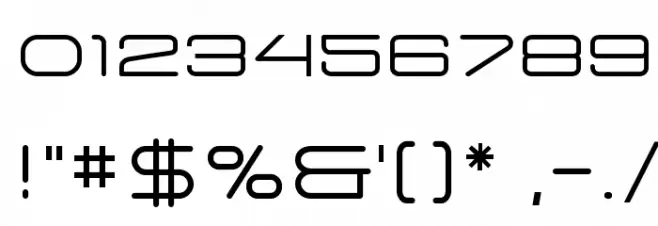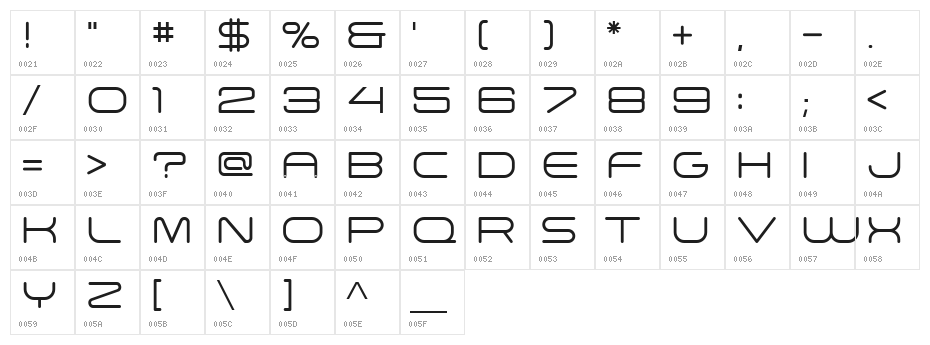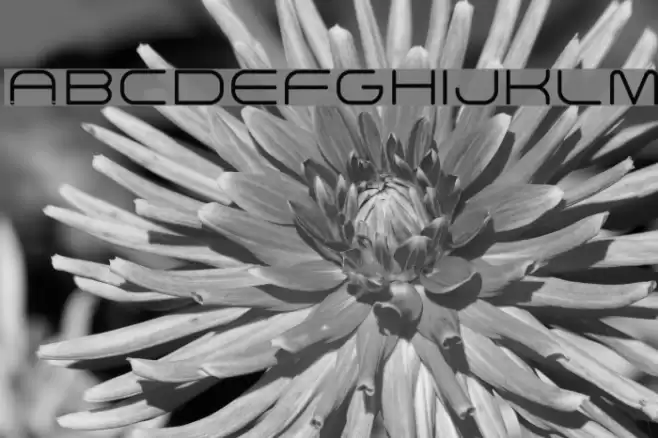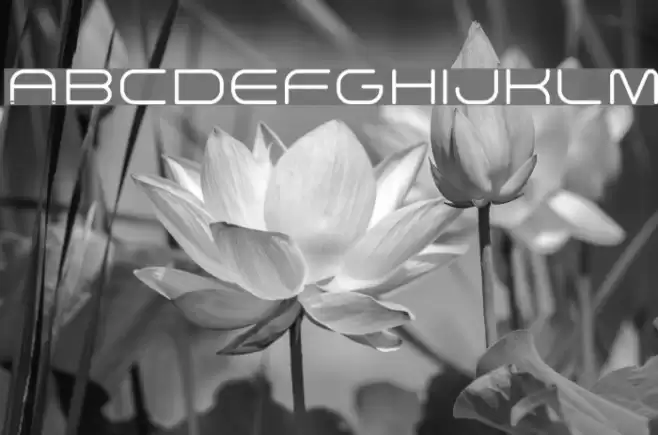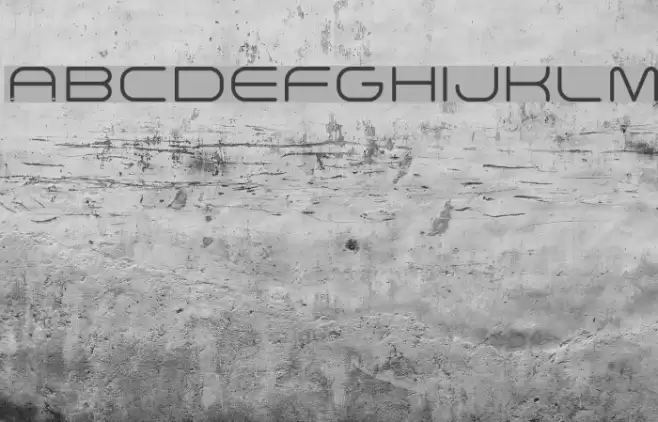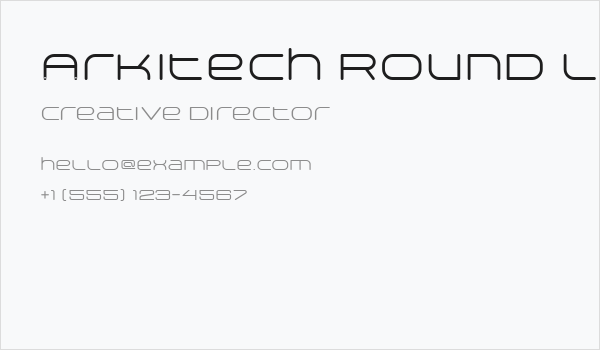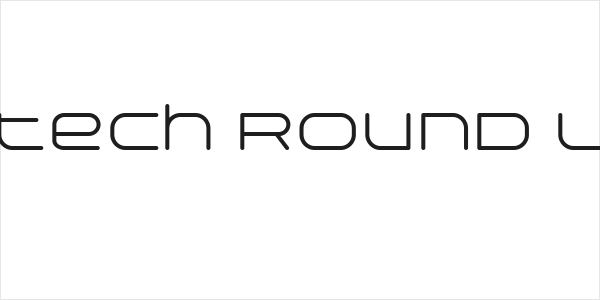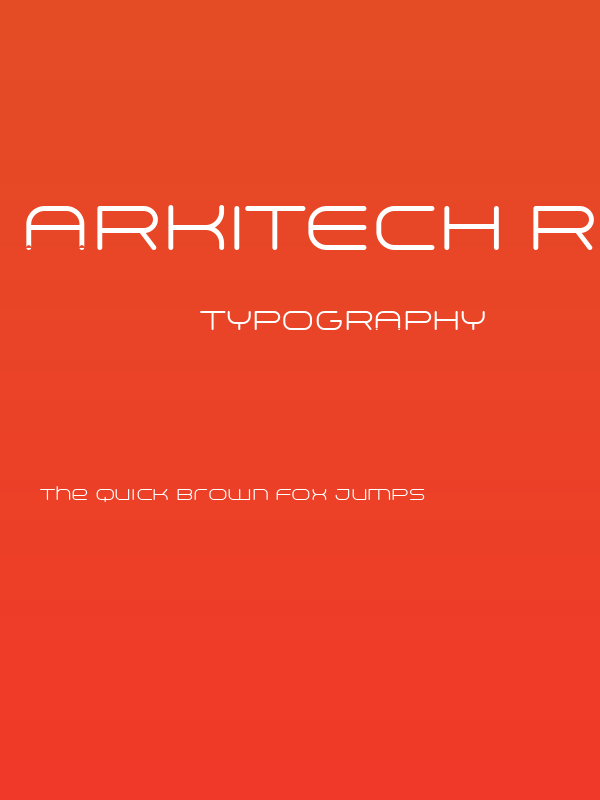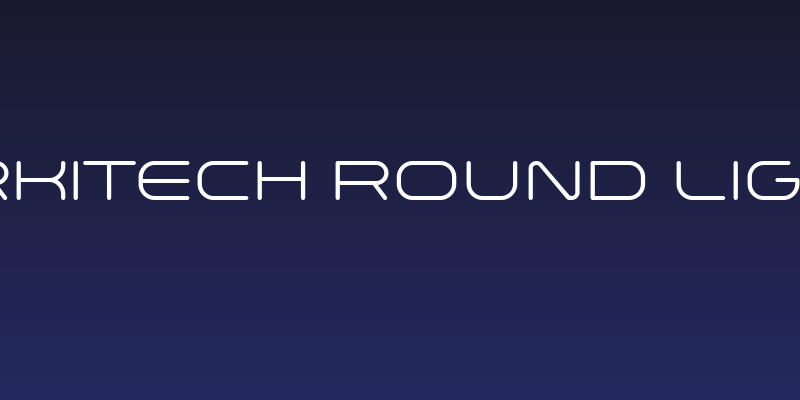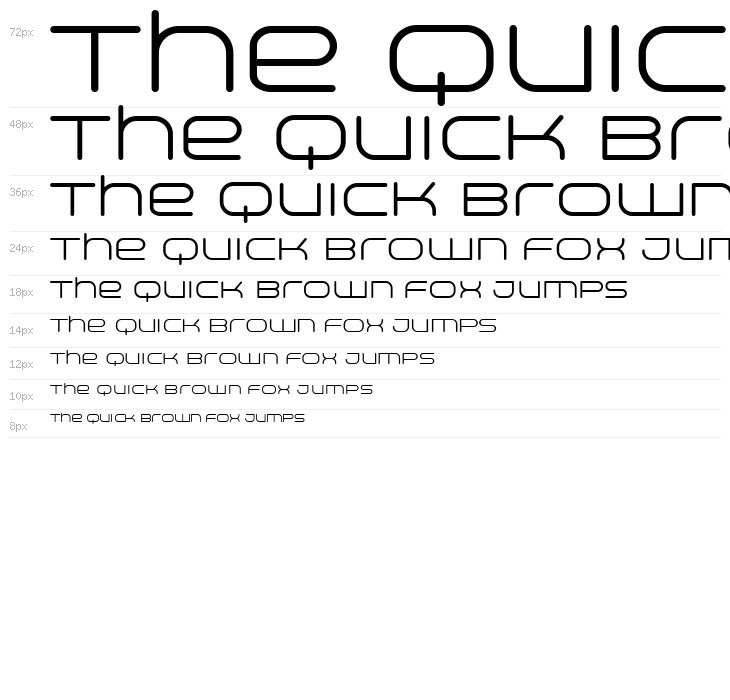
Arkitech Round Light Font
Arkitech Round Light Description
This font features a modern and sleek design with rounded edges and a geometric structure. The characters are evenly spaced, providing a clean and organized appearance. The uppercase and lowercase letters maintain a consistent style, with smooth curves and straight lines that create a harmonious balance. The numerals and special characters follow the same design principles, ensuring uniformity across all elements. This font is ideal for projects that require a contemporary and minimalist aesthetic, offering a professional yet approachable look.
| Use Case | Headlines, Logos, User Interfaces |
| Proposed Projects | Ideal for tech branding, modern websites, app interfaces, and minimalist posters. |